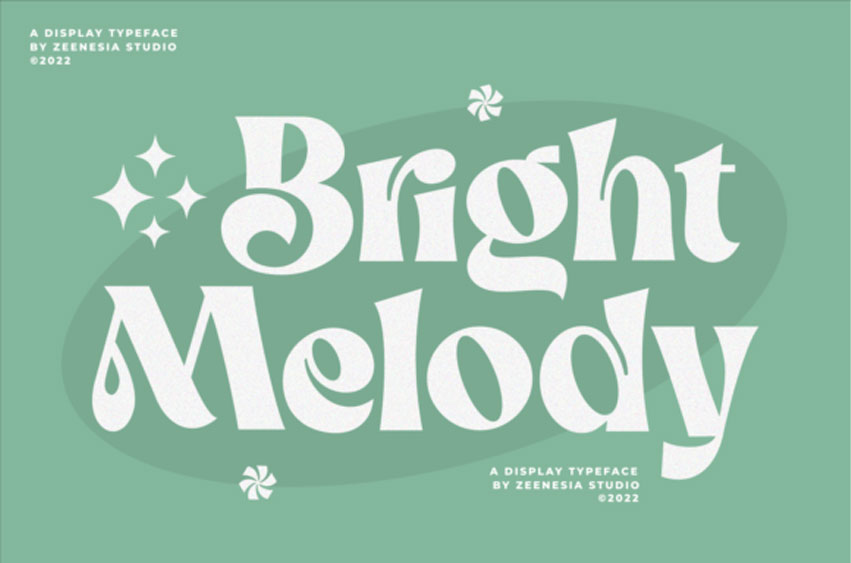
Bright Melody Font
Bright Melody Font is a bold vintage-style display font with a strong character and soft features. It is a versatile font that works great in large.
Perfect for editorial projects, logo design, web font, clothing branding, product packaging, magazine headers, or simply as a stylish text overlay to any background image.